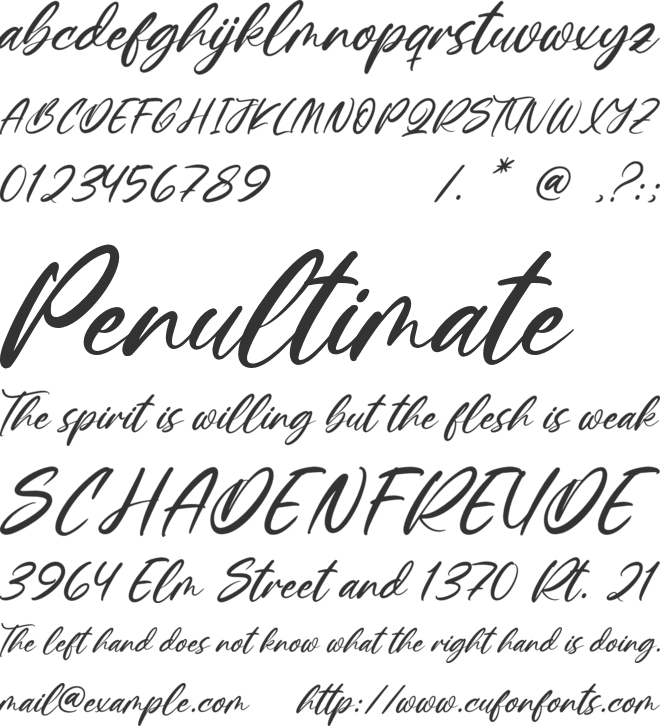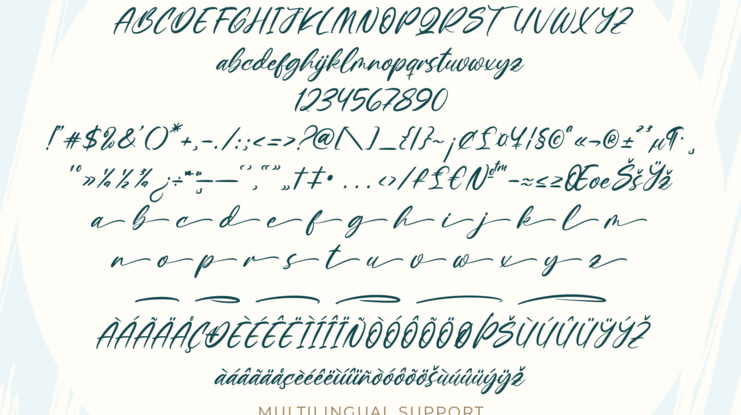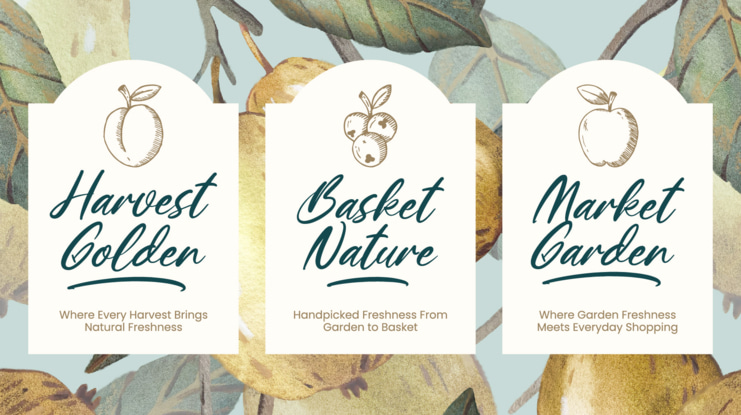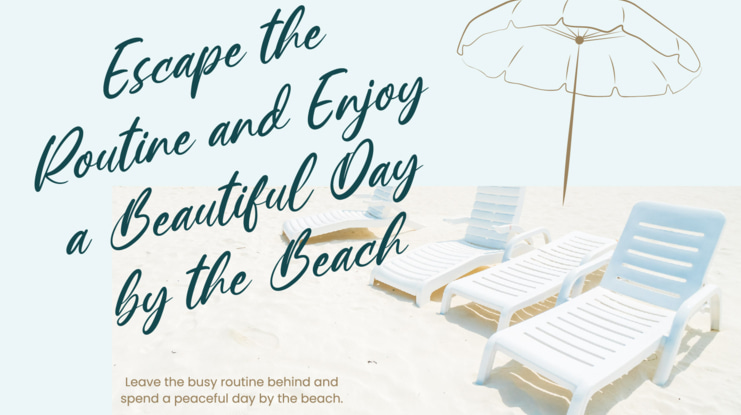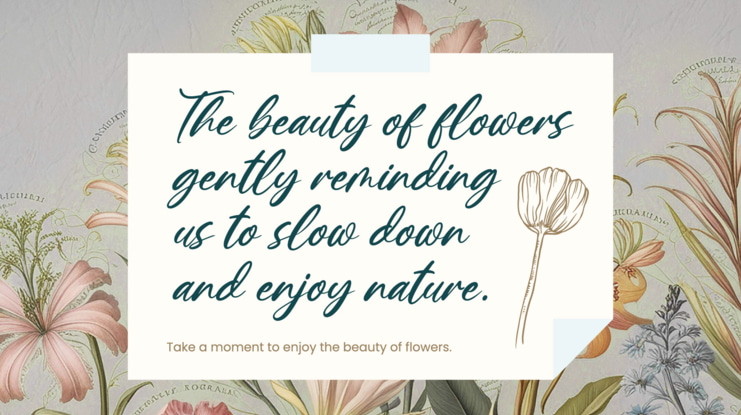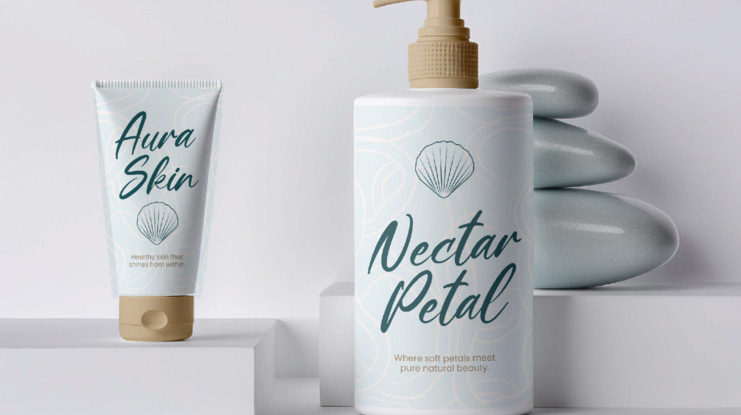
Delaghen Font
Delaghen – Handwritting Stylish Script Font
Delaghen is a stylish handwriting script font that blends elegance with a natural handwritten flow. Designed with smooth curves and refined strokes, this font delivers a graceful and modern look while maintaining the warmth and personality of real handwriting.